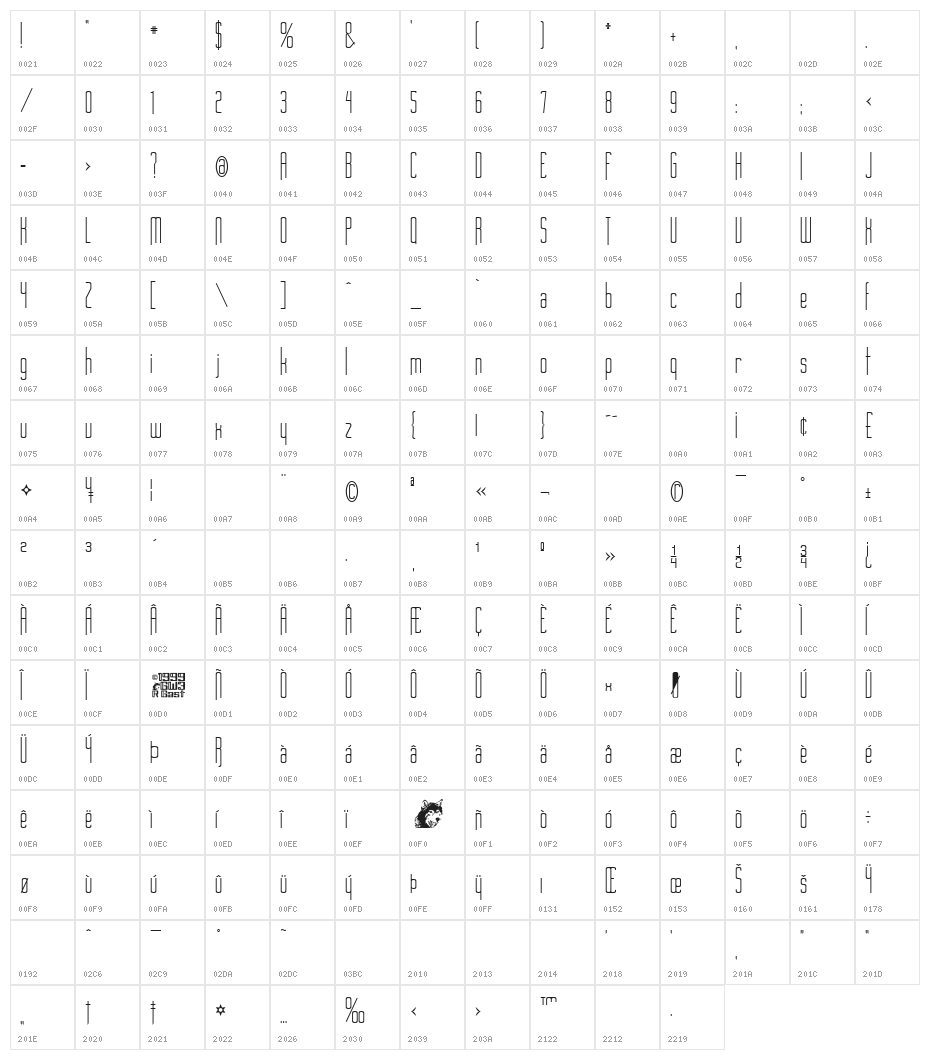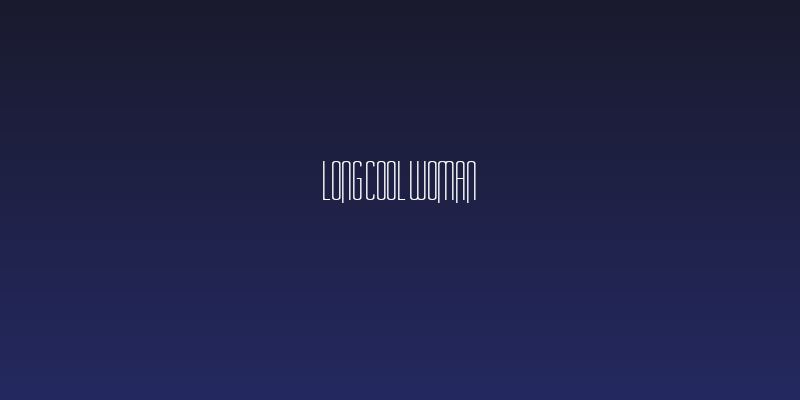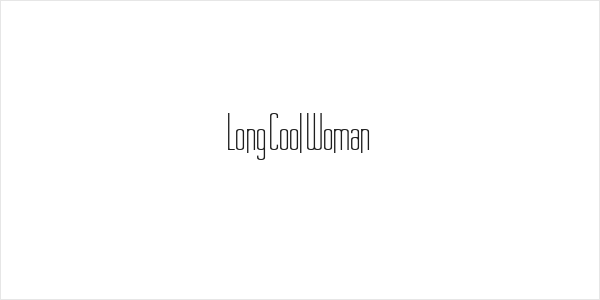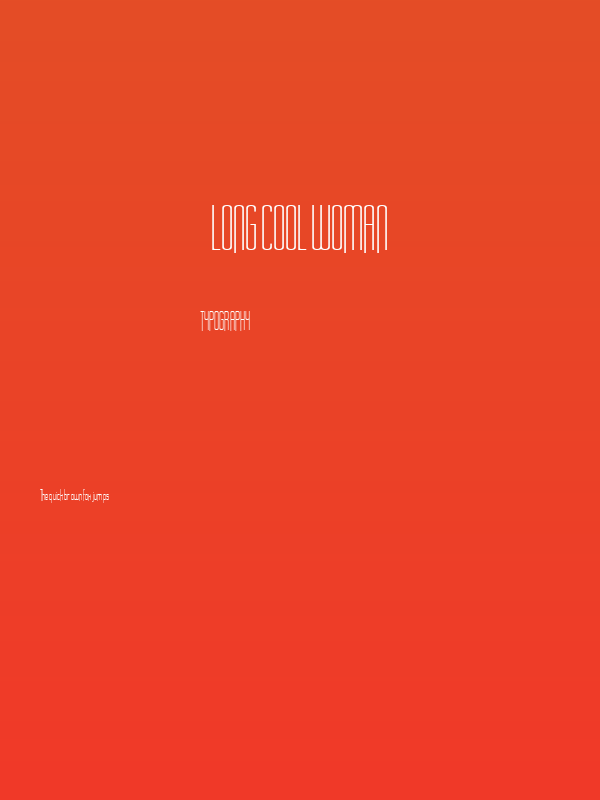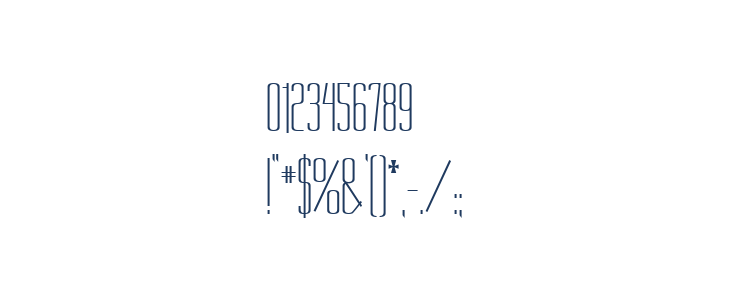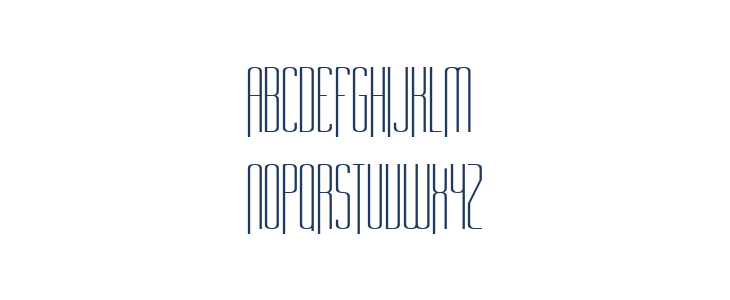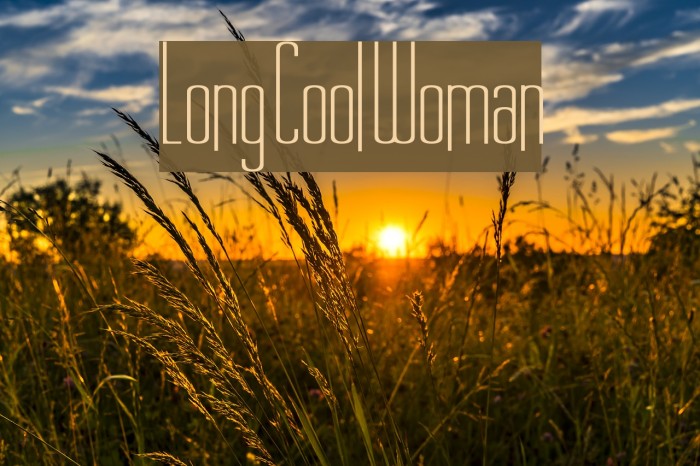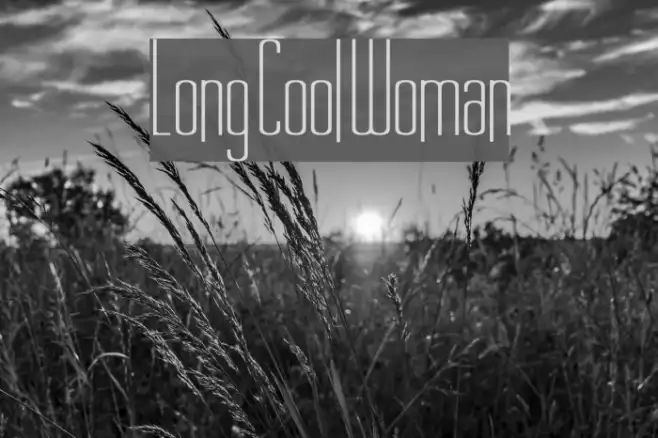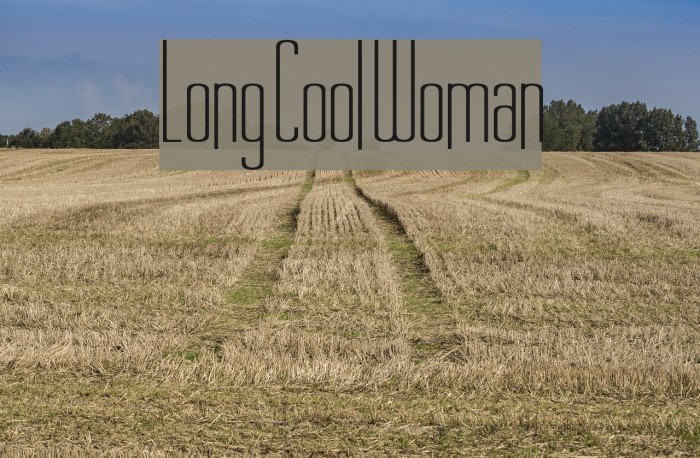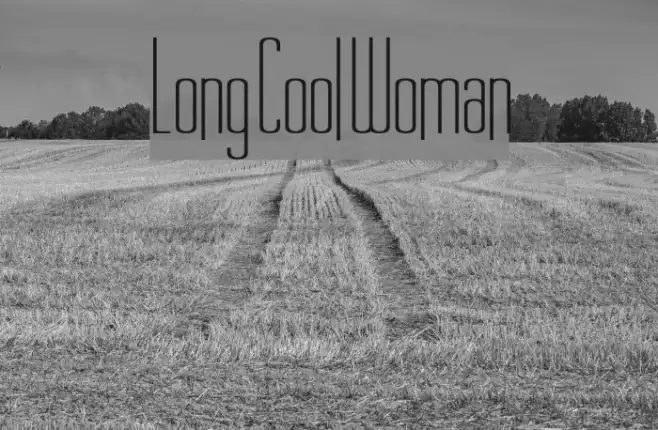
Long Cool Woman Font
Long Cool Woman Description
This font features a tall, narrow design with elongated letterforms that give it a sleek and modern appearance. The characters are uniformly thin, with a consistent stroke width that maintains a minimalist aesthetic. The uppercase letters are particularly striking, with a geometric precision that adds to the font's contemporary feel. The lowercase letters follow the same narrow structure, ensuring readability while maintaining the overall style. Numbers and special characters are designed to match the font's clean lines, making it versatile for various applications. The spacing between characters is tight, which enhances the compact and streamlined look.
| Proposed Projects | Ideal for fashion branding, modern logos, magazine headlines, and minimalist design projects. |